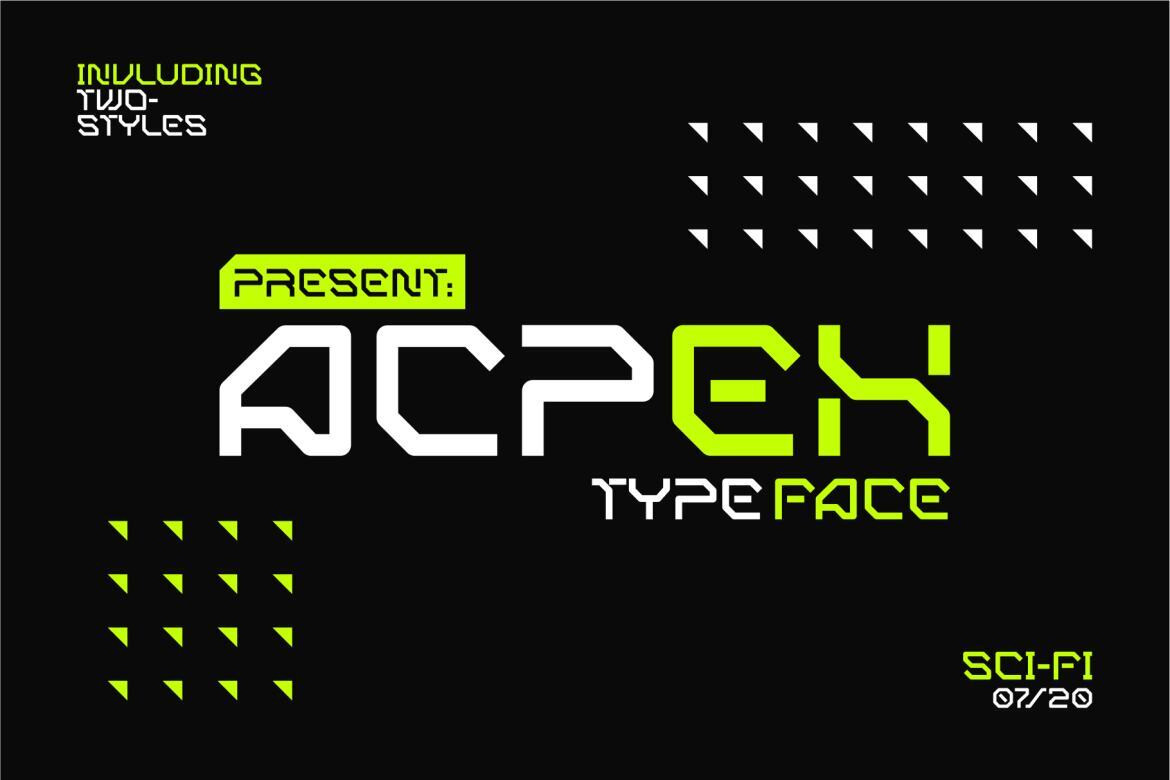
ACPEX is a font that is inspired by space design style, where this font has a high-tech impression suitable for use in branding like games, e-sports teams or whatever.deeezy.com/product/27652/acpex…